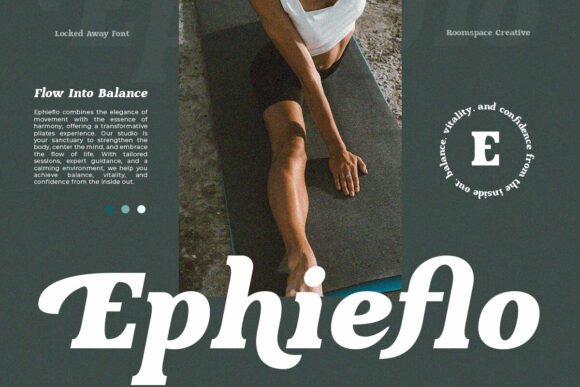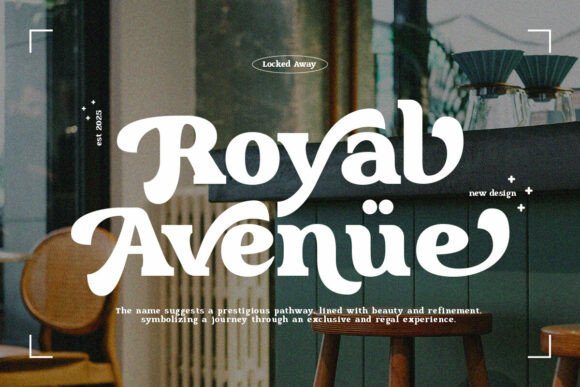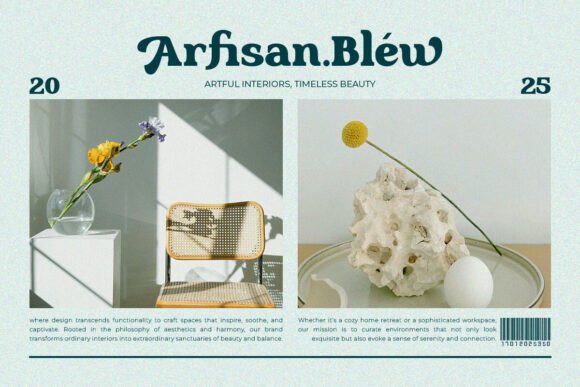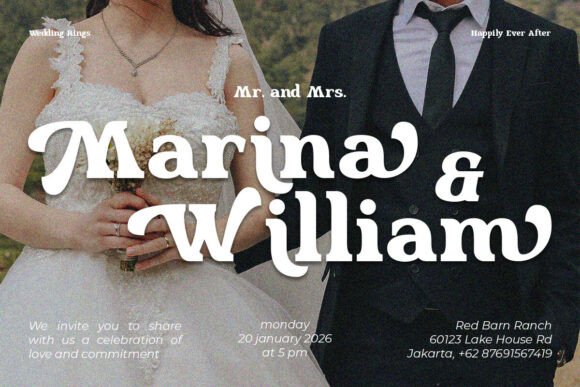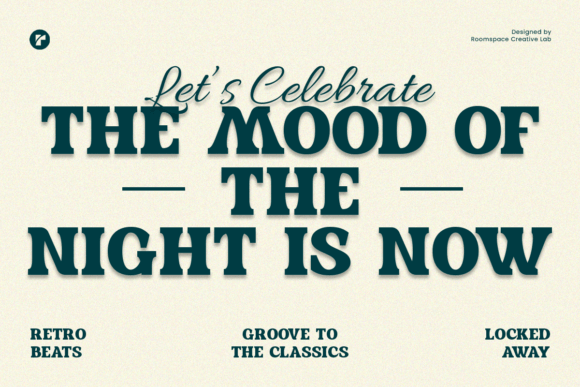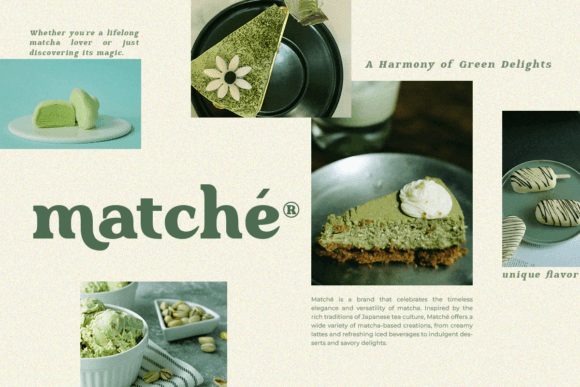
Introduction to Locked Away Font Font
Fonts play a crucial role in design, and the Locked Away Font font is a typeface that brings both character and versatility to any project. Whether you’re working on a branding project, a website, or a print design, the Locked Away Font font offers a unique style that can elevate your work.
Locked Away, a contemporary serif font that artfully combines sophistication with uniqueness.
What truly sets Locked Away apart is its distinctive design: a complete set of swashes and tails that elevate each character, offering an elegant and creative touch These unique stylistic features can seamlessly integrate into your designs, allowing for endless layout possibilities and creative experimentation.
Key Features of Locked Away Font Font
Why Choose Locked Away Font Font?
The Locked Away Font font is more than just a typeface – it’s a design tool that helps you communicate your message with style and clarity. Its unique character set and versatile design make it suitable for a wide range of applications, from elegant invitations to bold headlines.
With its carefully crafted letterforms and balanced proportions, the Locked Away Font font ensures readability and visual appeal across all mediums.
What makes Locked Away Font font special?
The Locked Away Font font stands out with its unique design, exceptional readability, and versatility across various design applications.